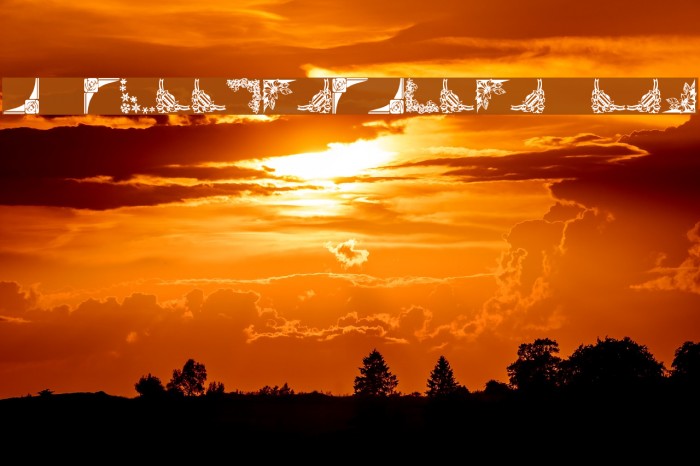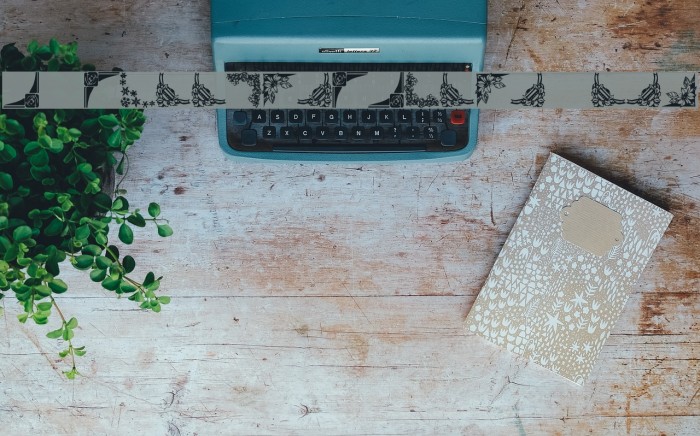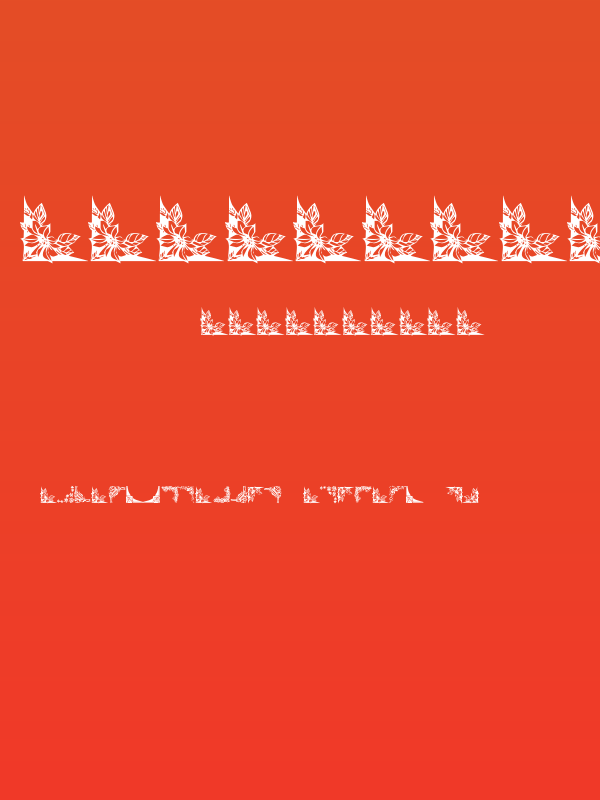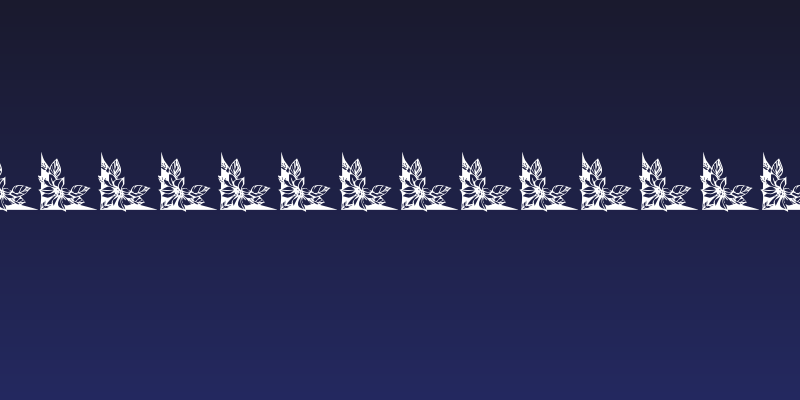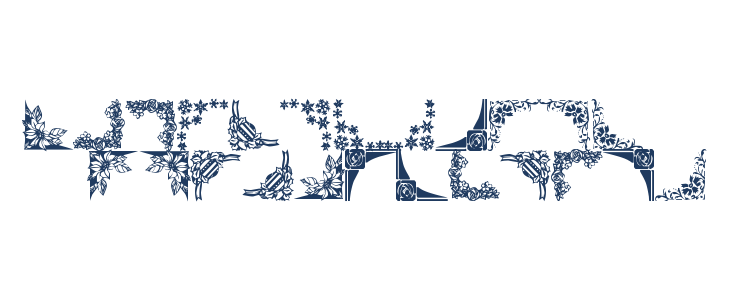
Vintage Decorative Corners 2 Font
Vintage Decorative Corners 2 Description
Ornate, vintage-inspired decorative corner and border elements featuring intricate floral motifs and bold black outlines, designed for embellishing page edges or frames.
| Overall Style | Vintage, Decorative |
| Use Case | Borders, Frames, Decorative accents |
| Proposed Projects | Wedding invitations, certificates, book covers, greeting cards, decorative frames, scrapbooking. |